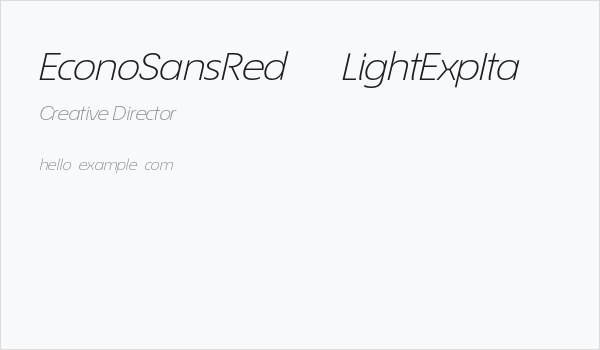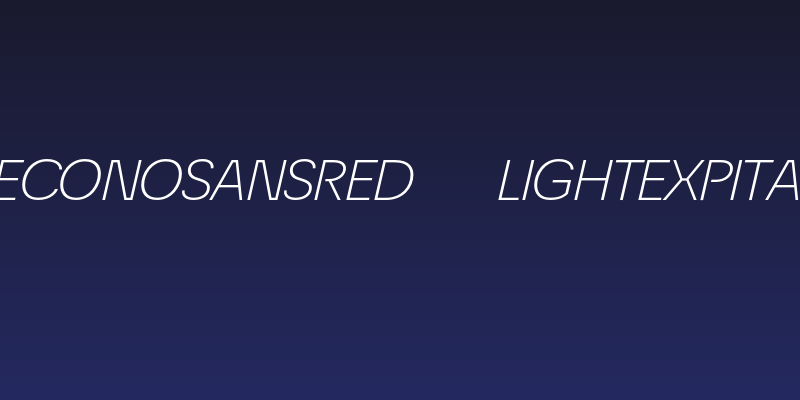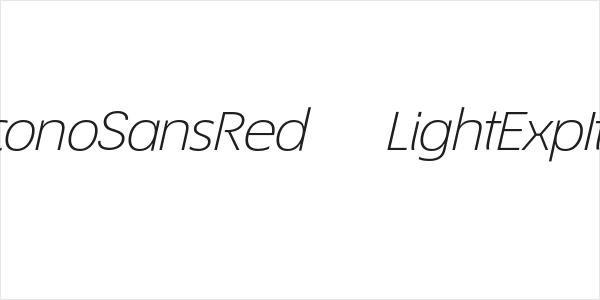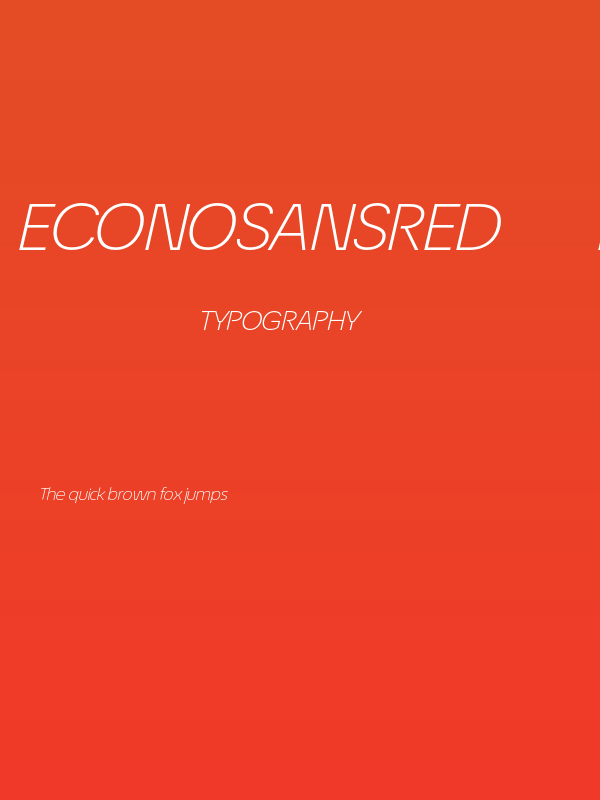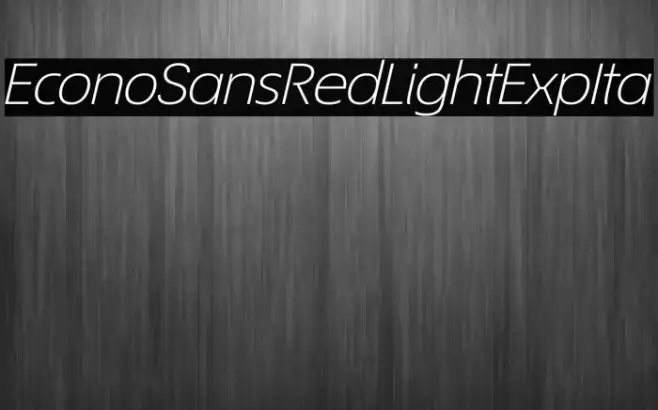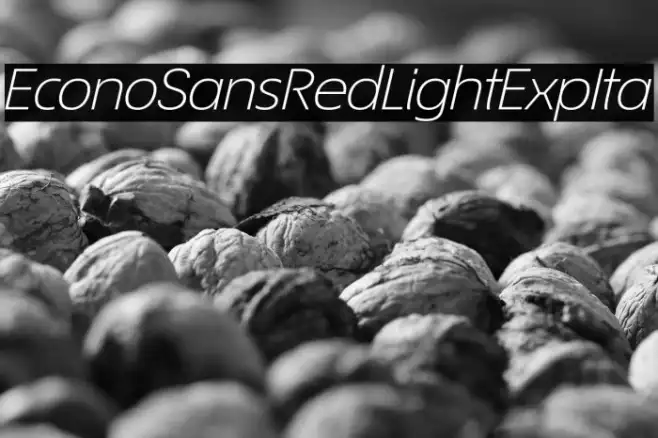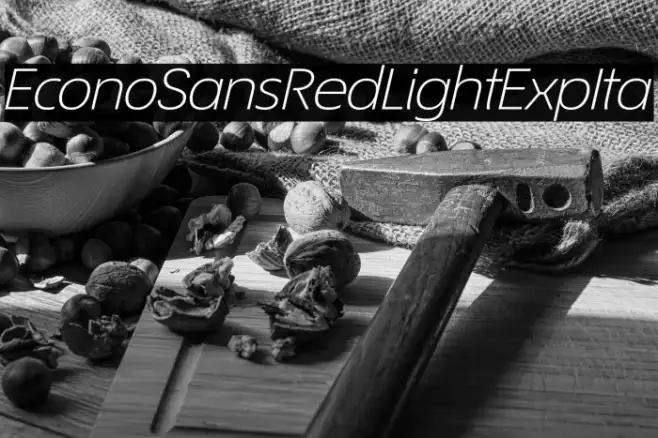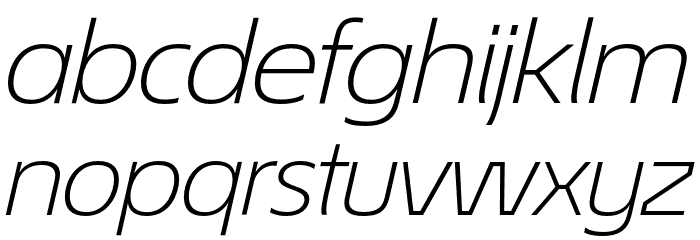
EconoSansRed-44LightExpIta Font
EconoSansRed-44LightExpIta Description
This font features a sleek and modern sans-serif design with an italicized style, giving it a dynamic and forward-leaning appearance. The characters are elongated and slightly expanded, contributing to a sense of elegance and sophistication. The strokes are uniform with low contrast, providing a clean and minimalistic look. The overall design is airy and light, making it suitable for contemporary and professional applications. The font's expanded width and italic slant add a unique flair, making it stand out in both digital and print media.
| Font Family | EconoSans Red Light Exp |
| Style | Italic |
| Proposed Projects | Ideal for branding, advertising, and editorial design where a modern and sleek appearance is desired. |